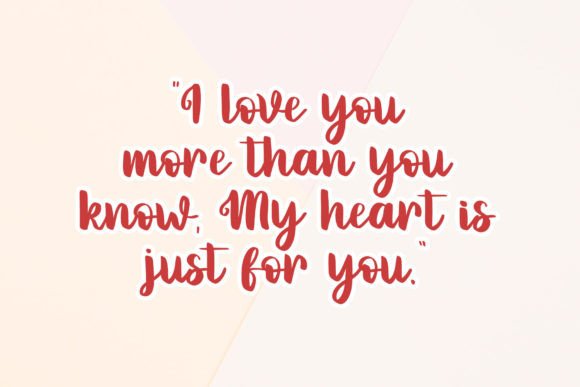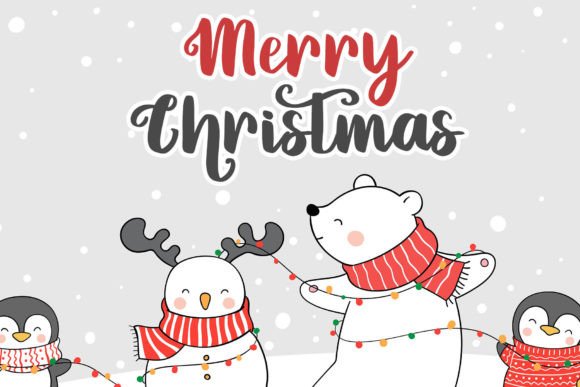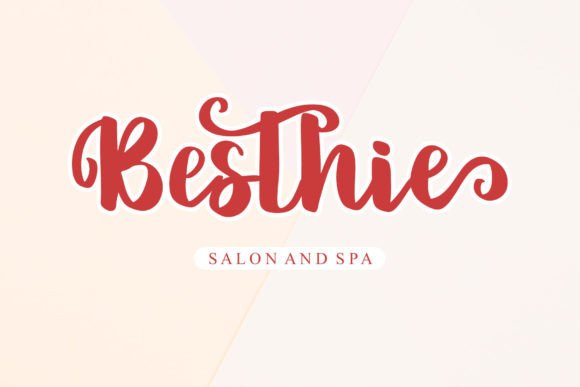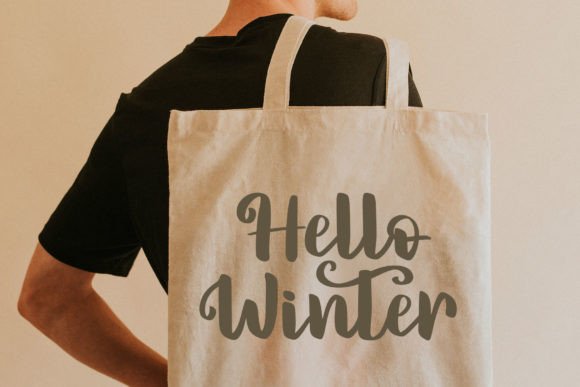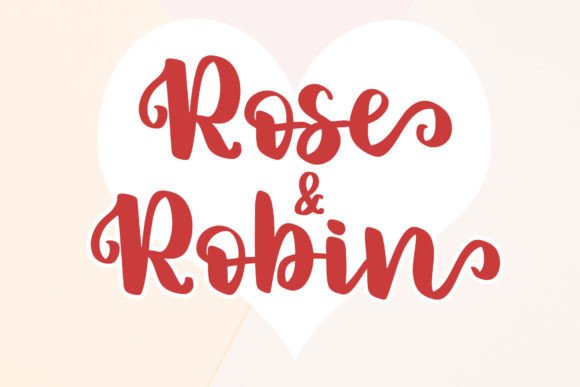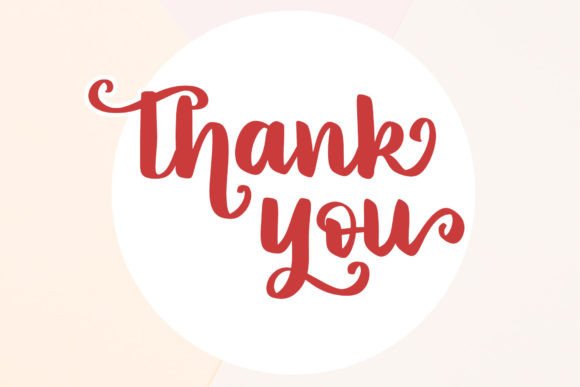
Introduction to Rohita Font
As you sit in front of your computer, surrounded by screens and papers filled with ideas, and you finally land on the perfect concept for your next creative project – the excitement is palpable. The rush of adrenaline as you start to envision the visual representation of your idea, and the search for the perfect design resource to bring it to life. That’s where Rohita Font comes in – a modern and stylish handwritten font that has the potential to elevate any creation.
With its unique blend of high-quality typography and creative flair, Rohita Font is an invaluable addition to any designer’s library. Whether you’re working on a personal project or collaborating with a team, this font will provide the perfect foundation for your design. And the best part? It’s available for a free download, making it a transparent background of inspiration for your next design project.
So, what makes Rohita Font so special? In this article, we’ll dive into the world of this versatile font and explore why it’s a must-have for any designer looking to take their creative projects to the next level.
Key Features of Rohita Font
- Rohita Font is a high-quality, free download design resource ideal for creative projects.
- This versatile font comes in a transparent background, allowing for seamless integration with various design elements.
- Rohita Font features a unique, modern design with a mix of clean lines and subtle flourishes, making it perfect for a wide range of creative projects.
- This font is highly customizable, allowing designers to adjust the font’s size, color, and style to suit their specific needs.
- Rohita Font is a great addition to any designer’s toolkit, offering a fresh and creative design element for free.
Honest Review: Rohita Font
I recently came across the Rohita Font, and I must say it’s a great addition to any designer’s toolkit. This free download is perfect for creative projects that require a unique and elegant touch. The Rohita Font is a high-quality design resource that can elevate your designs to the next level.
- ✨ High-quality design: The Rohita Font is crisp and clear, making it perfect for both print and digital designs.
- ✨ Transparent background: This feature makes it easy to use the font on various backgrounds without any distractions.
- ✨ Versatile: The Rohita Font is suitable for a wide range of creative projects, from logos to brochures.
- ⚠️ Limited font sizes: While the font is high-quality, it’s only available in a limited number of font sizes.
- ⚠️ Not ideal for large body text: The Rohita Font is best used for headings and titles, as it can be difficult to read in large quantities.
Overall, I’m impressed with the Rohita Font. It’s a great design resource for anyone looking to add a touch of elegance to their creative projects. With its high-quality design and transparent background, it’s a must-have for any designer’s toolkit.
For the best results, use the Rohita Font in conjunction with a high-quality image or design element. You can also experiment with different font sizes and colors to achieve the desired effect.
Common Use Cases for the Rohita Font
The Rohita Font is perfect for a variety of design projects, including logos, business cards, and social media graphics. Its high-quality design and transparent background make it a great choice for any creative project.
Q: Does Rohita Font have a transparent background?
Yes, the Rohita Font has a transparent background, making it ideal for use in creative projects where a clear background is required. This feature also allows for seamless integration with other design elements.